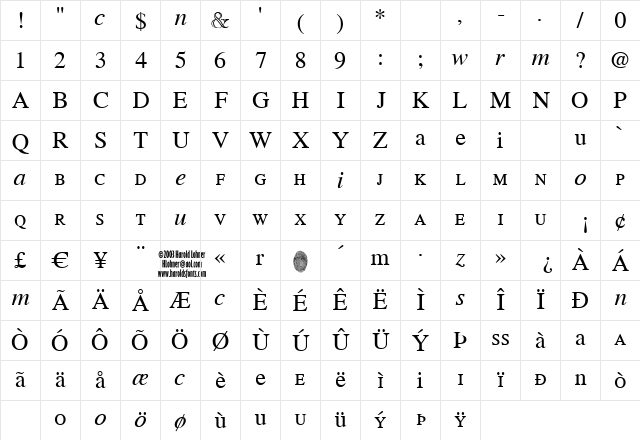
Willing Race Regular
Design Context for Willing Race
Willing Race is a composed and adaptable typeface that performs quietly and consistently across a wide range of design contexts.